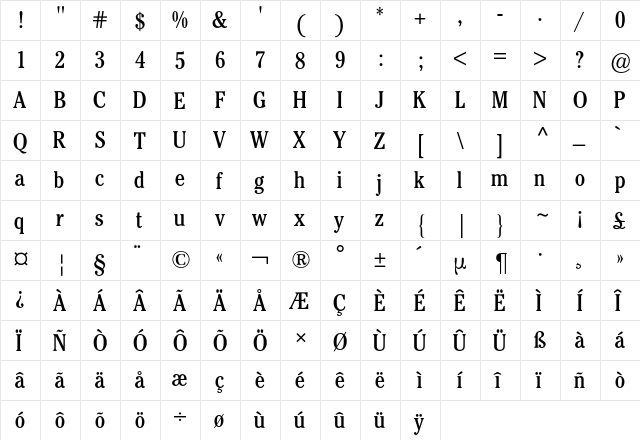
Cheltenham ITC BQ Regular Font Preview
Cheltenham ITC BQ Regular
Design Context for Cheltenham ITC BQ Typeface
Cheltenham ITC BQ is a composed and adaptable typeface that performs quietly and consistently across a wide range of design contexts.